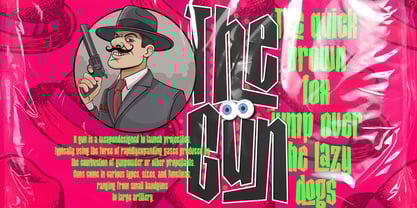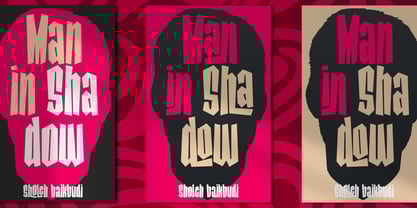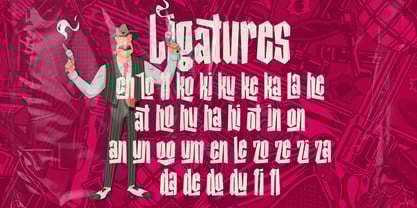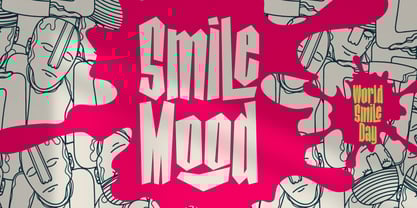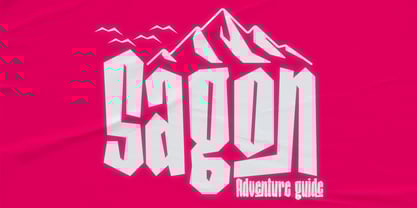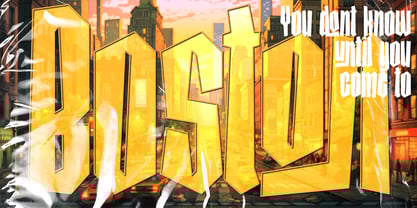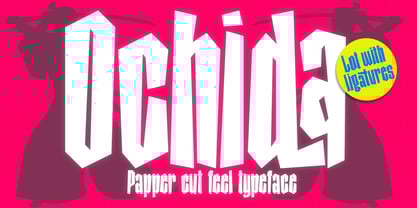
Ochida
by Linecreative
The Ochida Font Family was designed by Ari Juanda and published by Linecreative. Ochida contains 1 styles. More about this family
Ochida is a bold and artistic display font, inspired by the spontaneous beauty of random, quick-cut paper pieces coming together to form stunning letters. Its sharp edges and irregular shapes give it an organic, handmade feel, while maintaining a strong visual impact. Designed for creativity and expression, Ochida captures a sense of natural movement and energy, making it perfect for modern branding, posters, album covers, and experimental designs.
Designers: Ari Juanda
Foundry: Linecreative